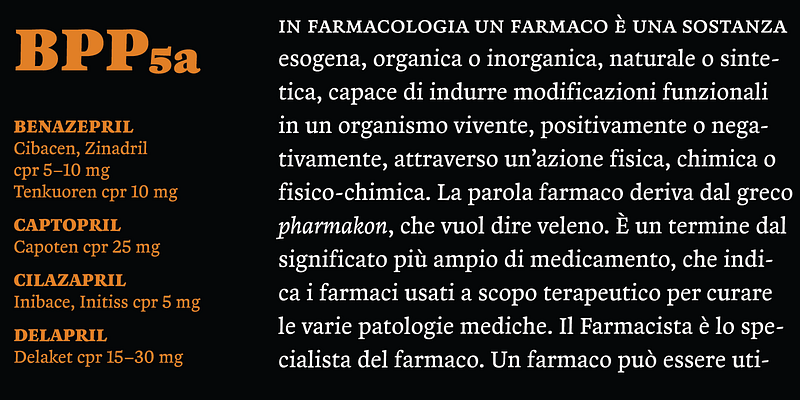
Zenon specimen
Zenon
Zenon is a book typeface in four weights with a wide range of applications. It is a contemporary roman developed from analysis of Renaissance types models. It is Arzachel’s perfect companion.